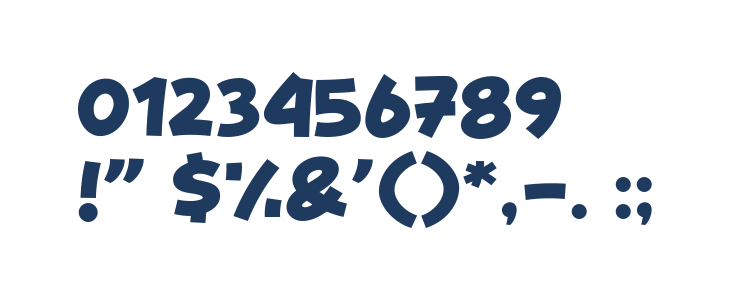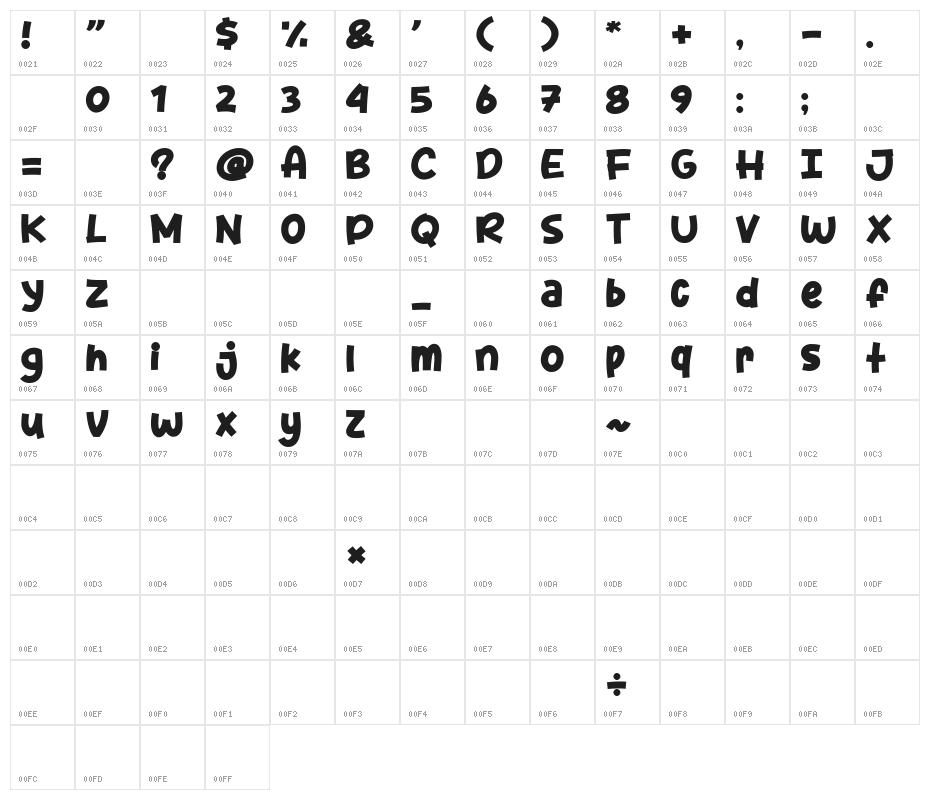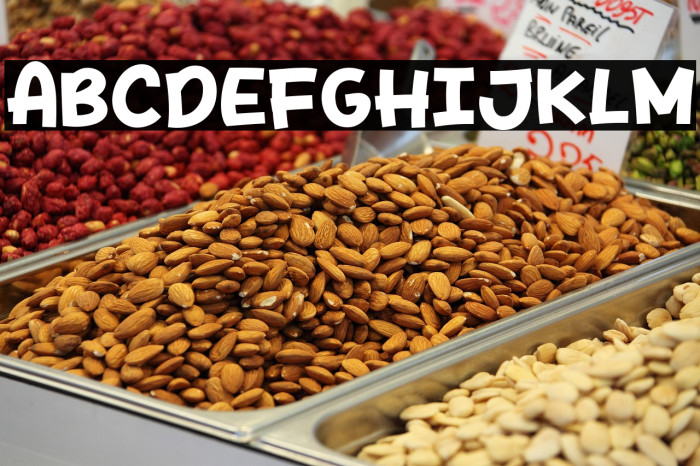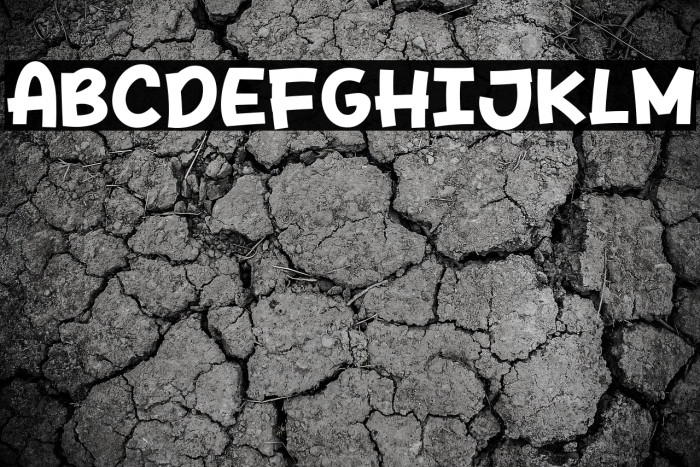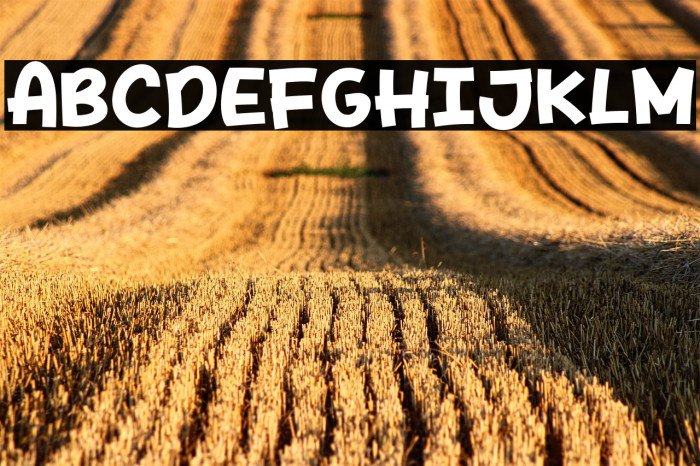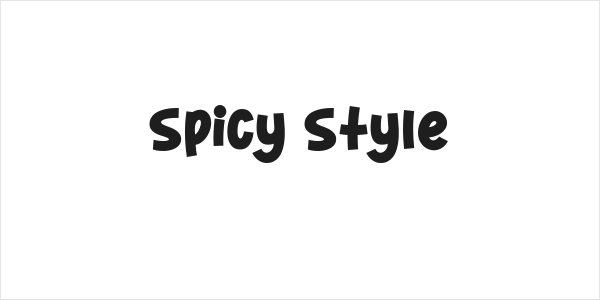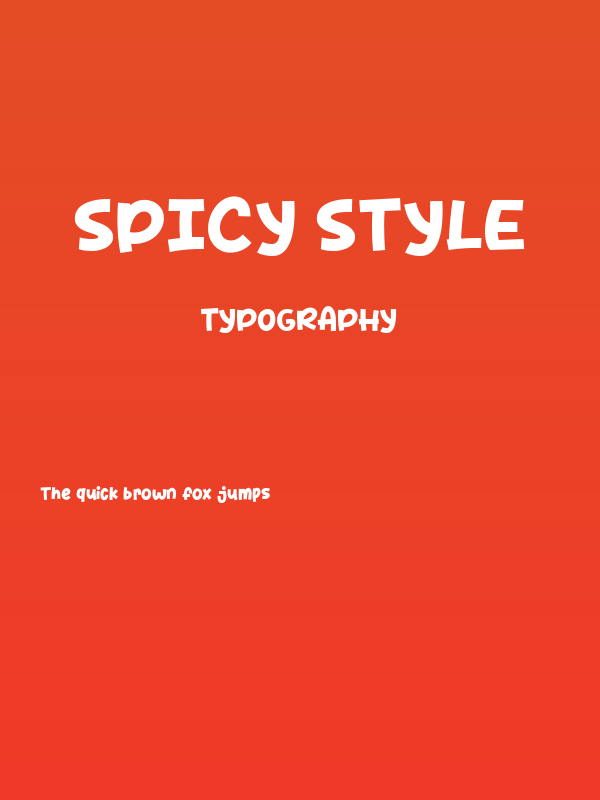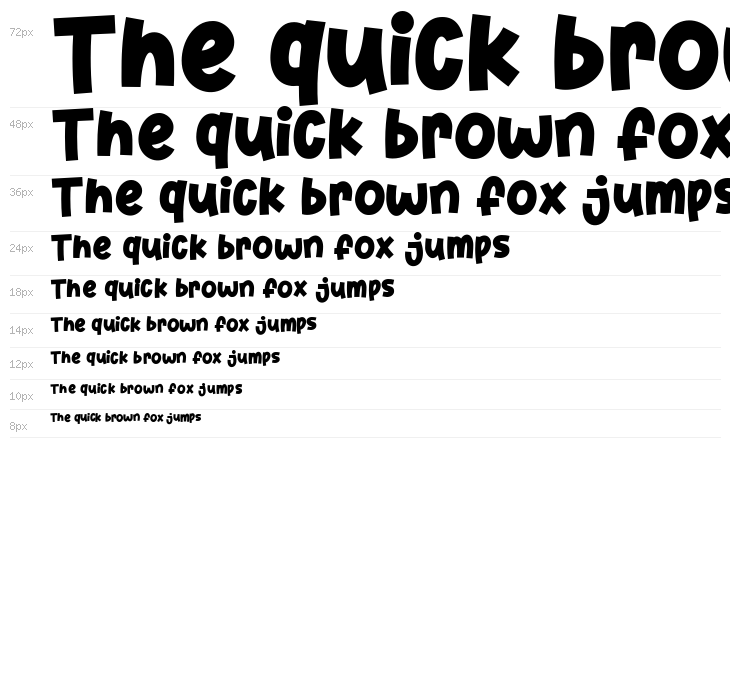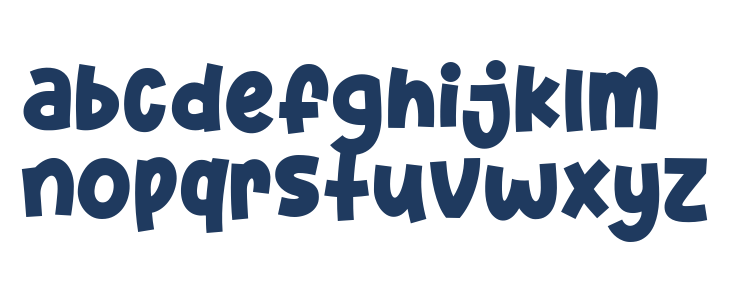
Spicy Style Font
Spicy Style Description
This font features a bold and playful design with a distinctly quirky and cartoonish style. The letters are rounded and slightly irregular, giving them a hand-drawn appearance. The uppercase and lowercase letters maintain a consistent width, while the numbers and special characters follow the same whimsical aesthetic. The font's thick strokes and exaggerated curves make it highly legible and eye-catching, perfect for projects that require a fun and informal touch. Its unique style is suitable for creative designs that aim to stand out.
| Overall Style | Playful, Quirky, Cartoonish |
| Proposed Projects | Ideal for children's books, comic strips, playful branding, and creative posters. |